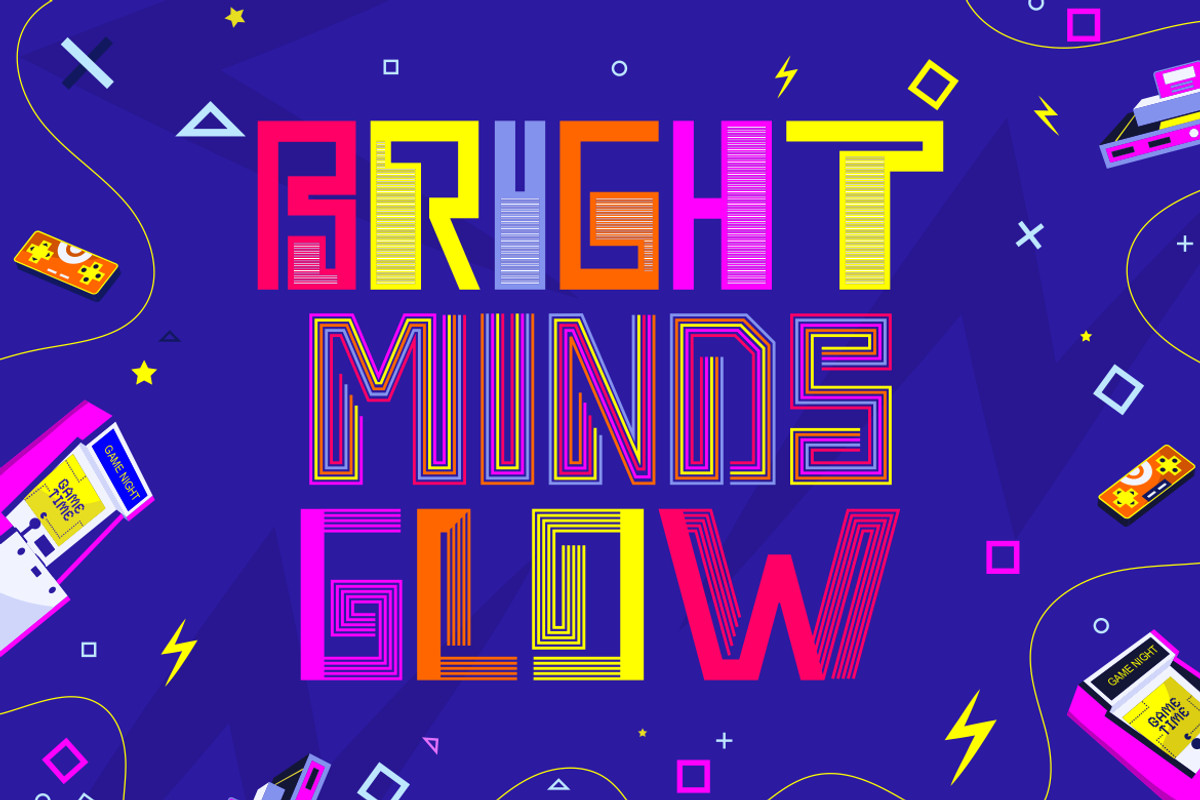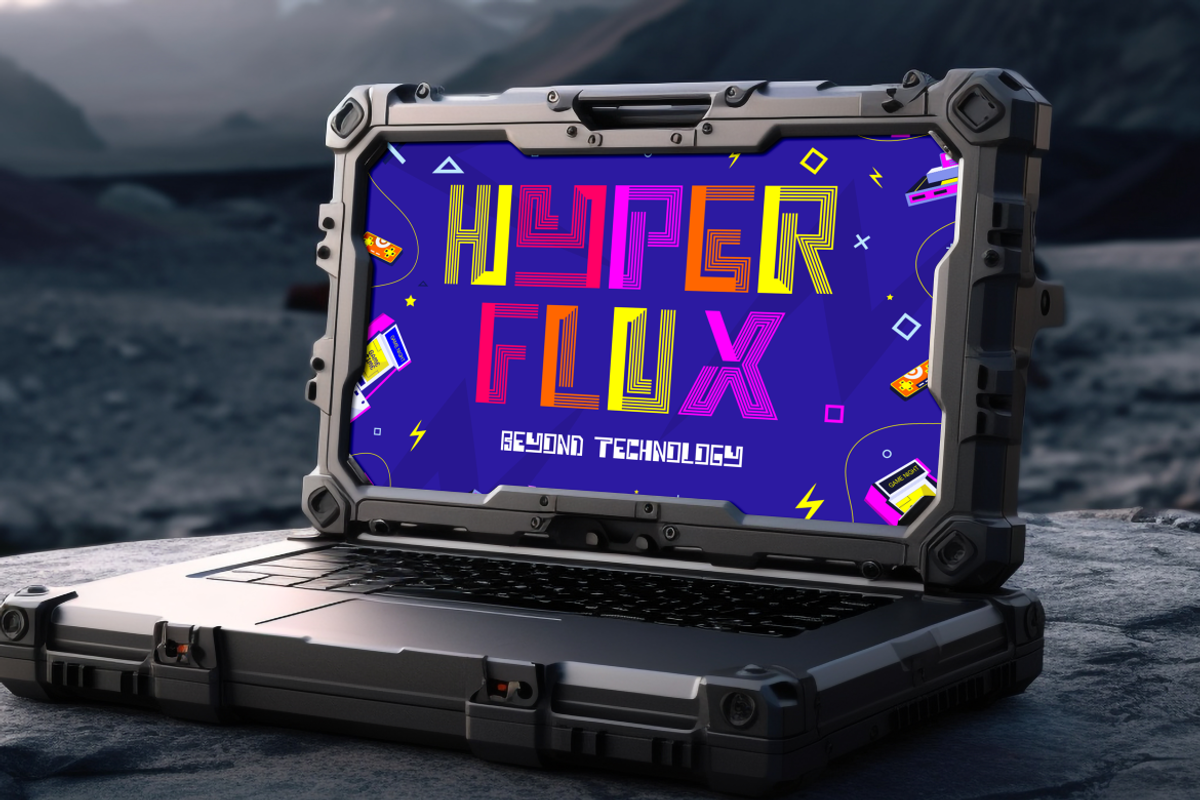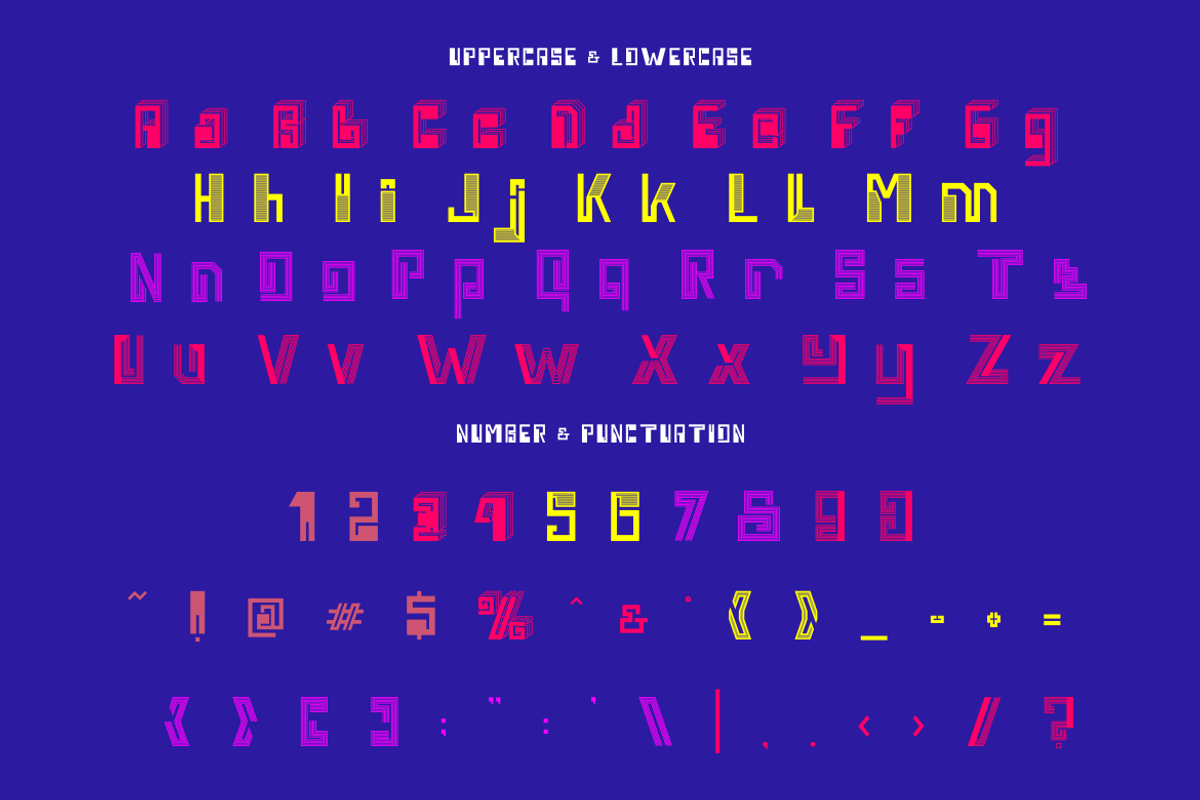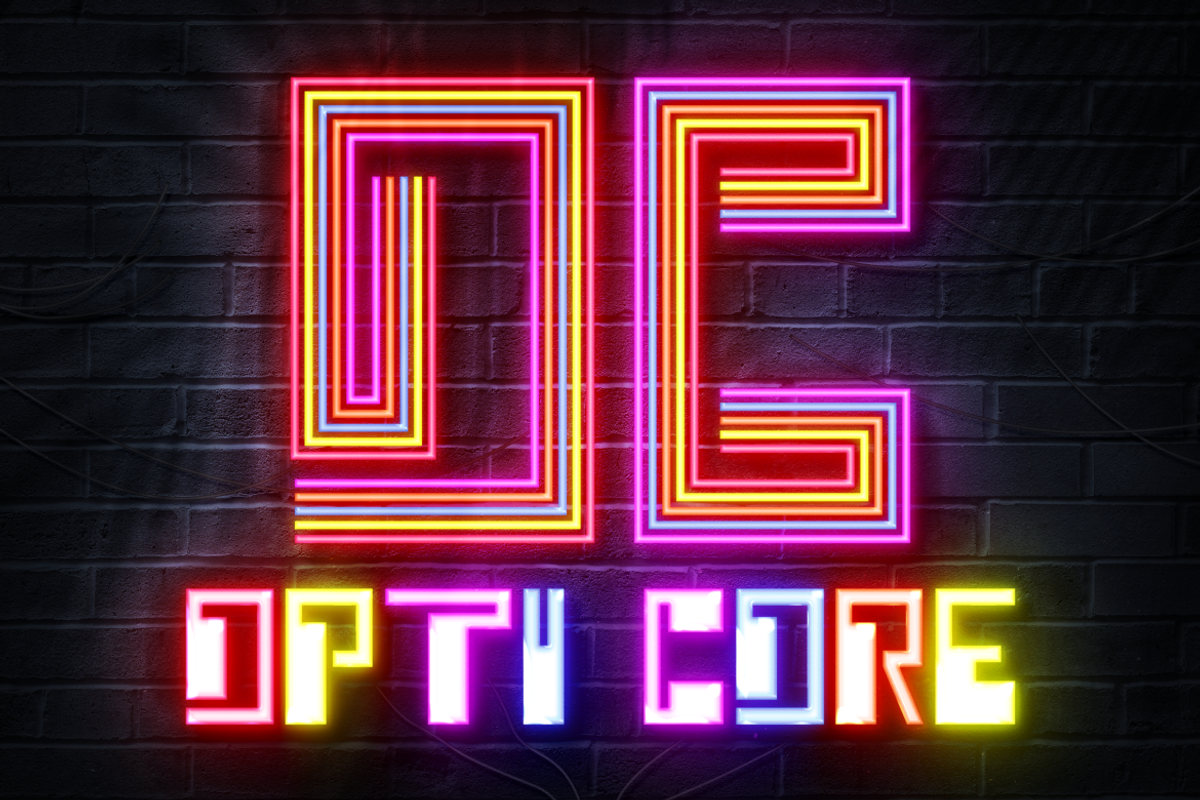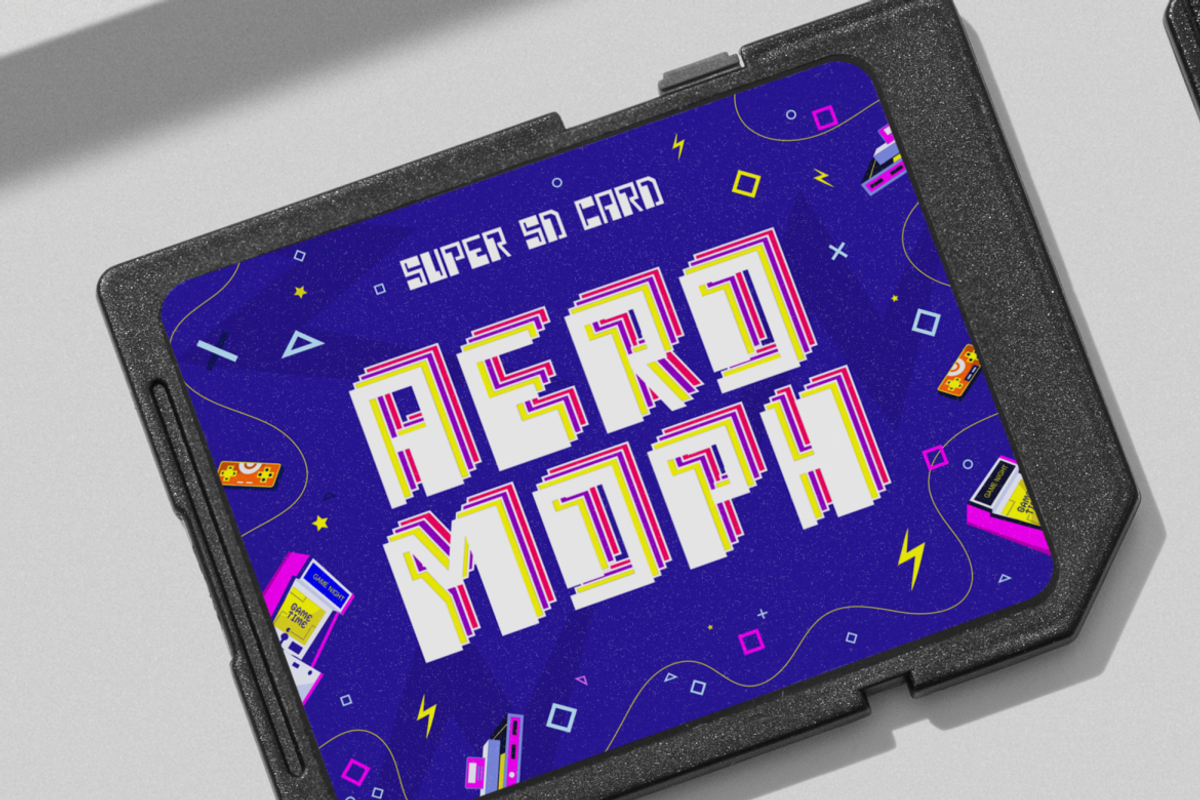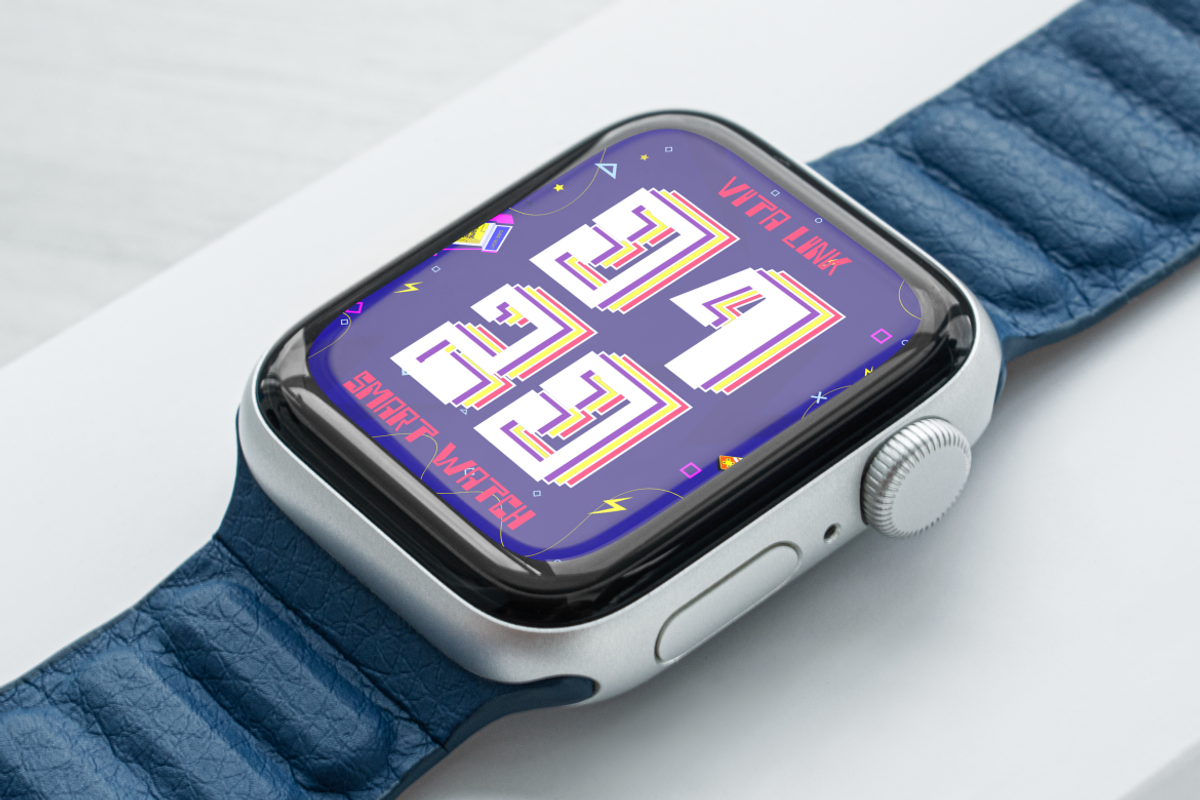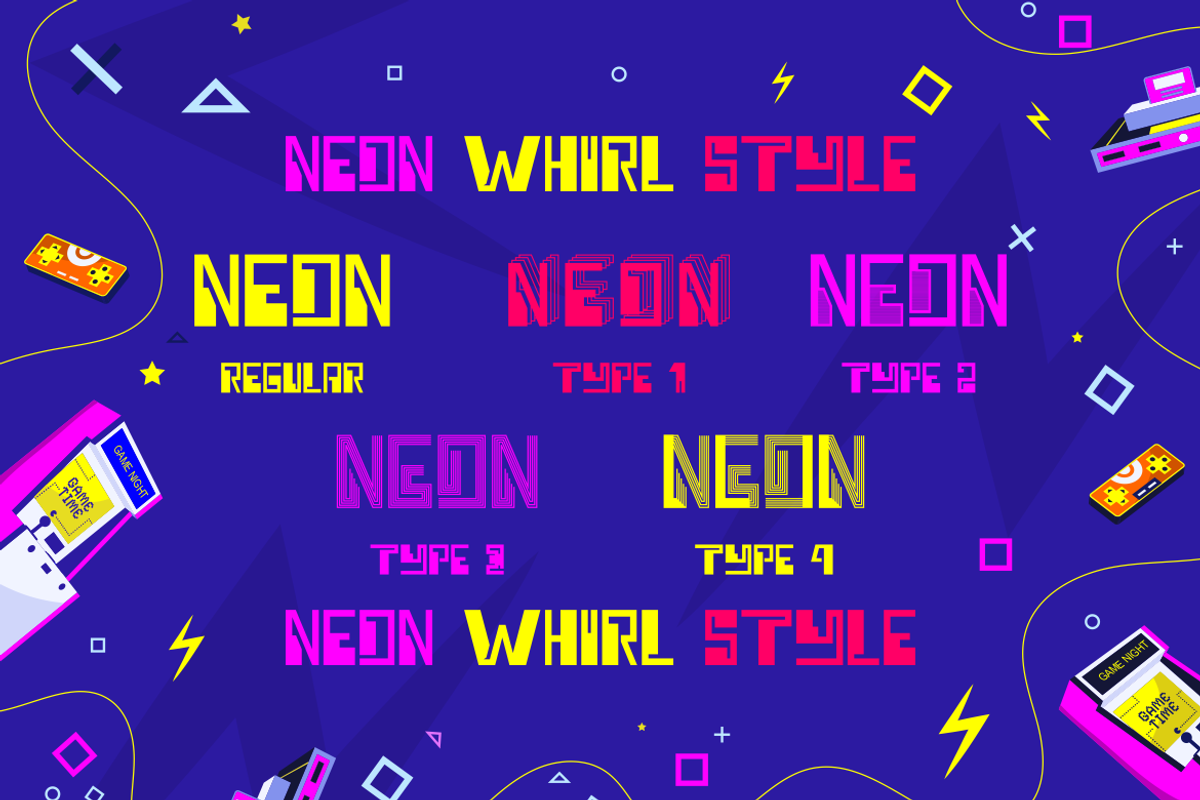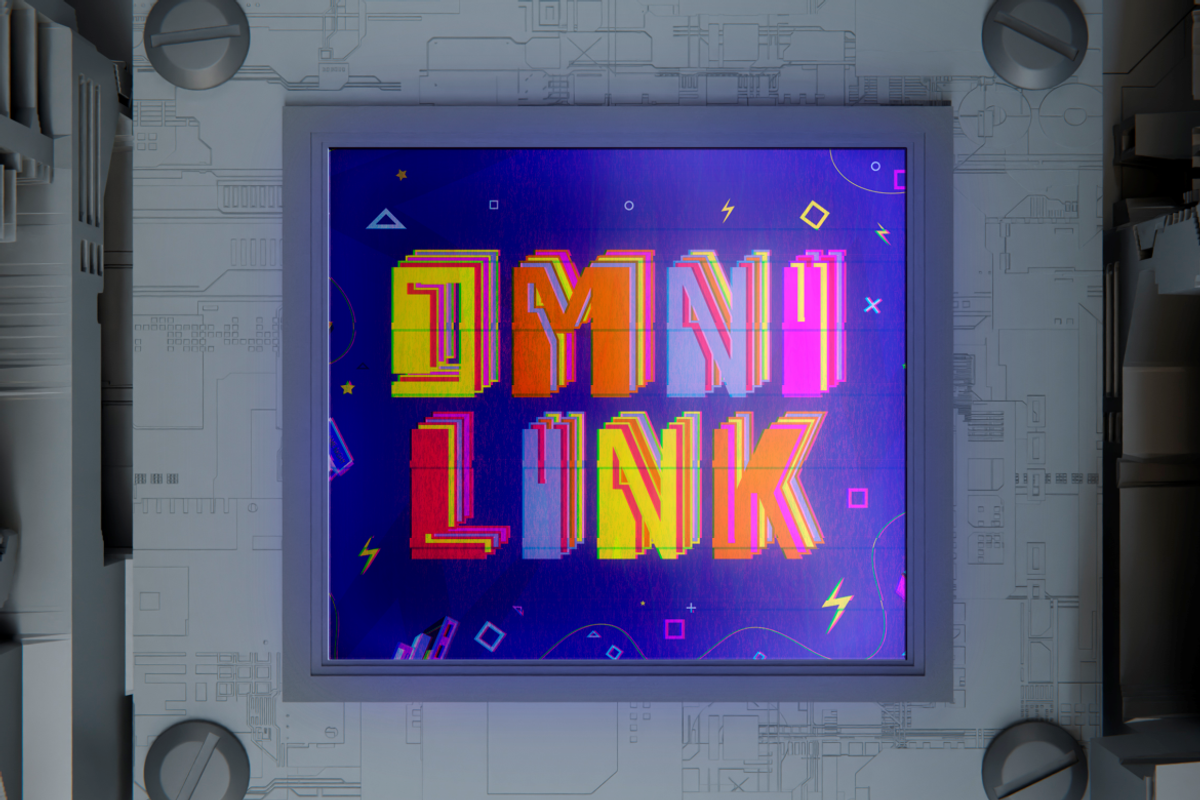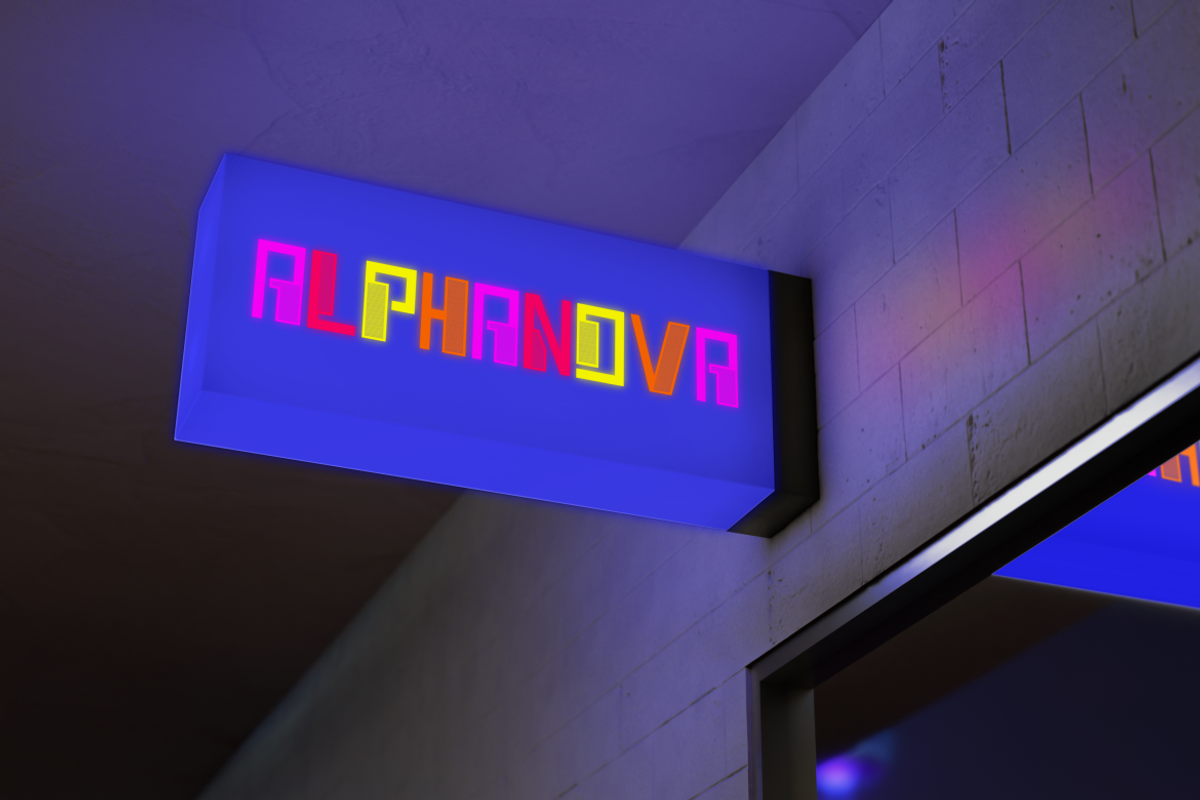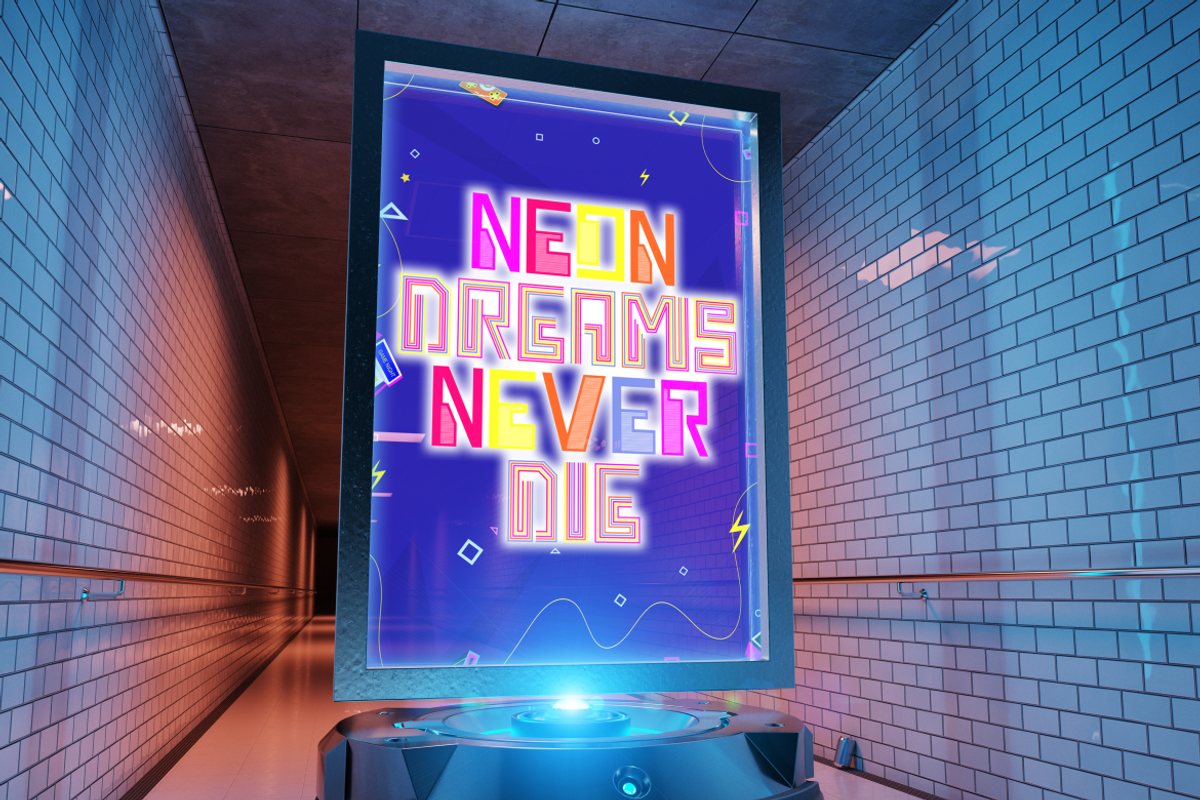
Neon Whirl - Colorful Font
Neon Whirl is a futuristic and playful display font that energizes your designs with colorful flair and geometric rhythm. Each character bursts with stacked neon-style lines, combining vivid hues of magenta, yellow, cyan, orange, and red over a bold white base. This quirky, layered design delivers a high-impact visual impression, ideal for youthful, tech-driven branding. Its bold angles, blocky shapes, and retro game aesthetics make it stand out in logos, posters, packaging, or sci-fi themes. The font maintains excellent readability while offering a uniquely expressive structure.
Designed for creative versatility, Neon Whirl thrives in diverse settings—from gadget branding, game interfaces, and e-sports content to film titles, children’s media, and event promotions. Its vector-perfect geometry ensures compatibility across print and digital platforms, while its bright palette injects excitement into every character. Whether you’re crafting a neon sign effect or designing futuristic merchandise, Neon Whirl brings movement, joy, and a modern twist to any visual project.